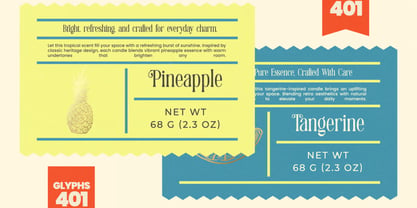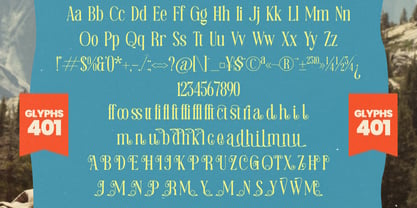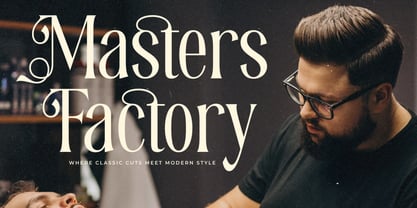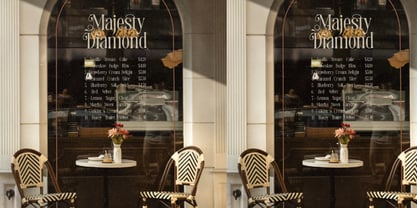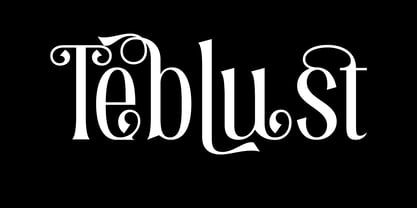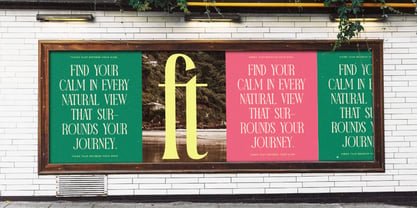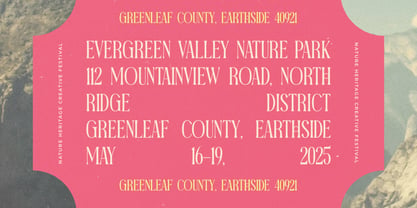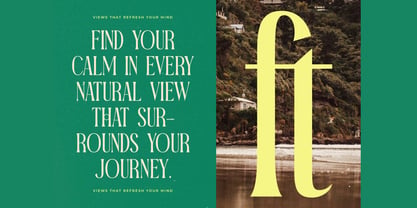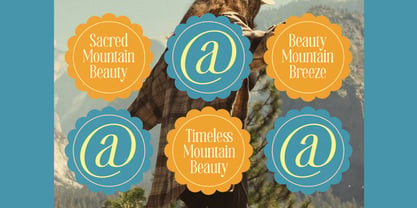
Teblust
by Hasnat Studio
Teblust is a vintage modern serif display font that masterfully combines retro elegance, European sophistication, and contemporary editorial style. Crafted with expressive curves, refined contrast, and artistic detailing, Teblust embodies the perfect harmony between old-world charm and modern design trends.
Inspired by classic retro signage, Renaissance aesthetics, and high-fashion typography, Teblust delivers a distinctive visual personality that elevates every project. Its carefully sculpted letterforms, decorative ligatures, and stylish alternates create typography that feels luxurious, expressive, and unforgettable.
Whether you're designing premium branding, fashion editorials, elegant packaging, creative posters, luxury logos, or sophisticated visual identities, Teblust provides the timeless beauty and artistic flair needed to make your work stand out.
Key Features:
• Vintage Modern Serif Design: A unique fusion of retro charm and contemporary elegance.
• Expressive Curves & Refined Contrast: Beautifully balanced letterforms with premium visual appeal.
• Stylish Ligatures: Elegant character connections for seamless typography.
• Decorative Alternates: Unique alternate glyphs that add personality and creativity.
• Uppercase & Lowercase Letters: Complete alphabet for versatile design applications.
• Numbers & Punctuation: Essential characters for professional typography.
• European-Inspired Aesthetic: Perfect for luxury, fashion, and editorial projects.
• High-Quality Display Typeface: Designed for maximum visual impact and readability.
Perfect For:
• Luxury Branding & Logo Design: Create memorable and sophisticated brand identities.
• Fashion Editorials & Magazines: Ideal for covers, headlines, and premium layouts.
• Packaging & Product Labels: Add elegance to cosmetics, beauty products, and boutique goods.
• Creative Posters & Advertising: Design striking visuals with artistic typography.
• Wedding Invitations & Stationery: Bring timeless beauty and sophistication to special events.
• Restaurant & Boutique Branding: Perfect for premium hospitality and lifestyle businesses.
• Social Media & Marketing: Create stylish and engaging promotional content.
Elevate your designs with Teblust—a vintage modern serif display font featuring elegant ligatures, decorative alternates, and European-inspired sophistication. Perfect for luxury branding, fashion editorials, packaging, posters, logos, magazines, and creative projects that demand timeless style with a modern twist.